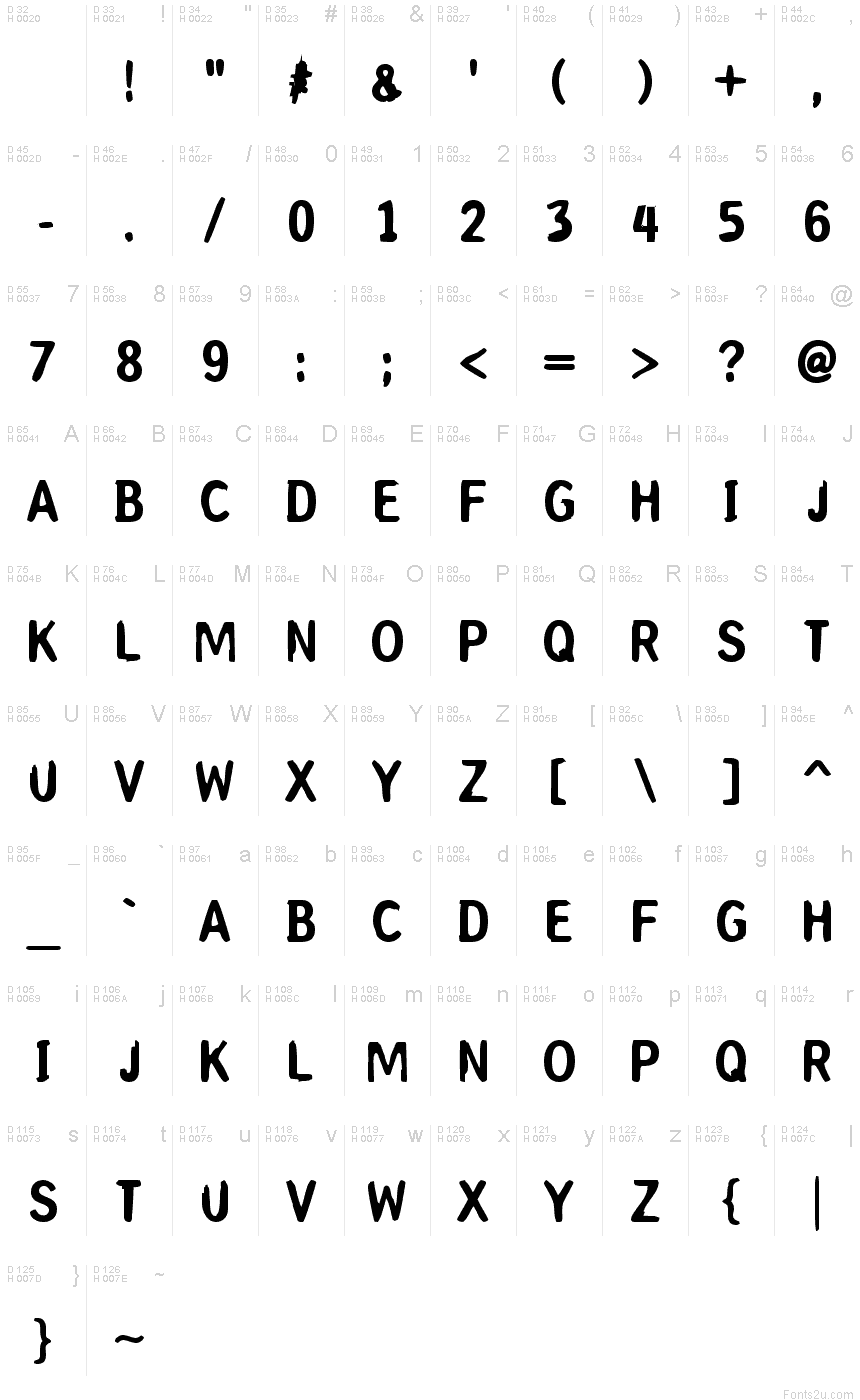
Coperniq Medium
Coperniq Medium font by Christophe Martin is a free eroded display font from the Coperniq family. Its heavy, rounded shapes are interrupted by sharp little bites and inky nicks, giving headlines a worn, stamped texture that feels tactile and slightly unruly without becoming hard to read.
Using Coperniq Medium works beautifully for poster titles, record sleeves, zine covers, festival flyers, streetwear labels, and moody book jackets where you want grit with a steady rhythm. This free font has enough weight to hold up big, and it pairs nicely with a plain sans for body copy so the rough texture stays front and center.